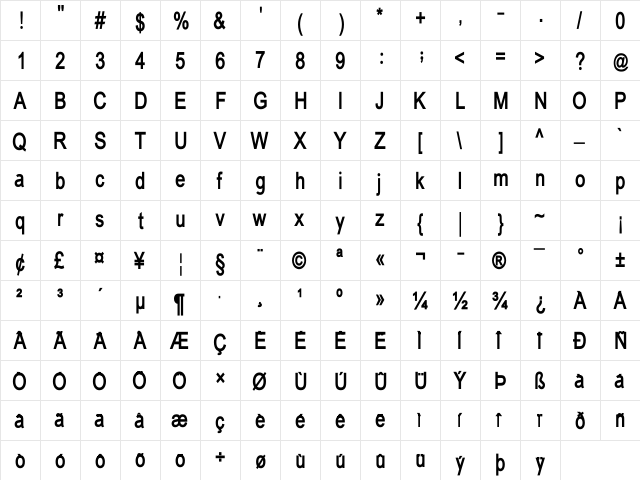
Tempest Regular
| Designer | George Herbert Hirst & Wilfred Rhodes 2001 |
Design Context for Tempest Typeface
Tempest offers clean, dependable letterforms without strong stylistic allegiance, making it a practical choice for designers who need flexibility.
Pro Tip: Use Tempest in both headline and body roles to test its range before committing to a single application.